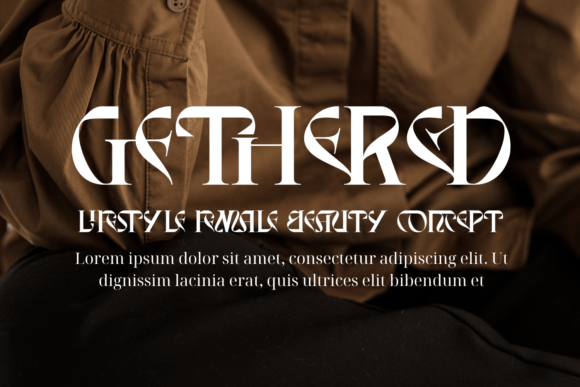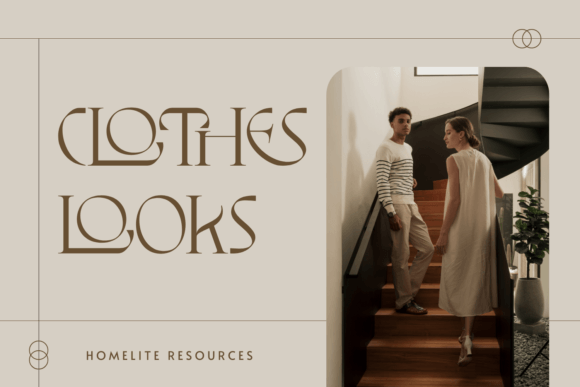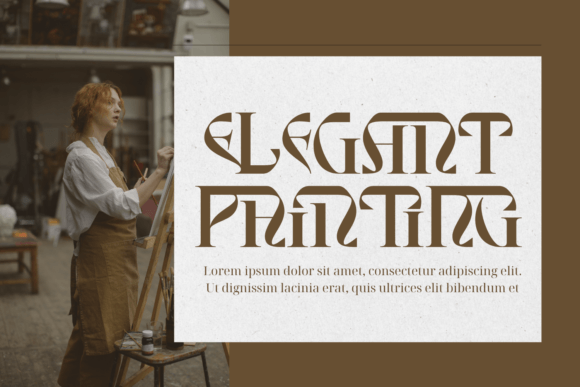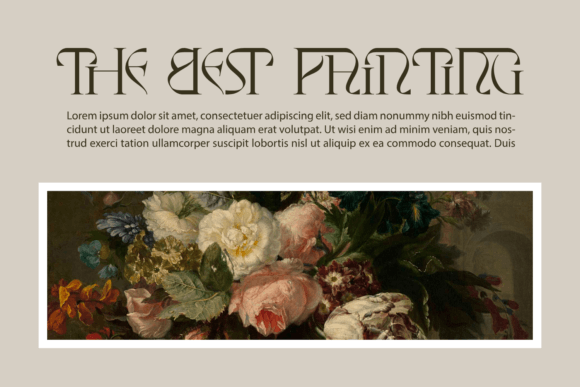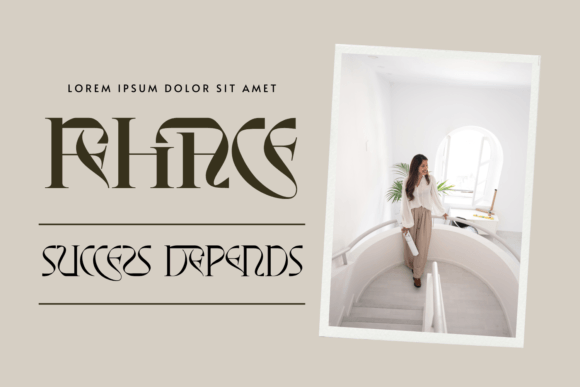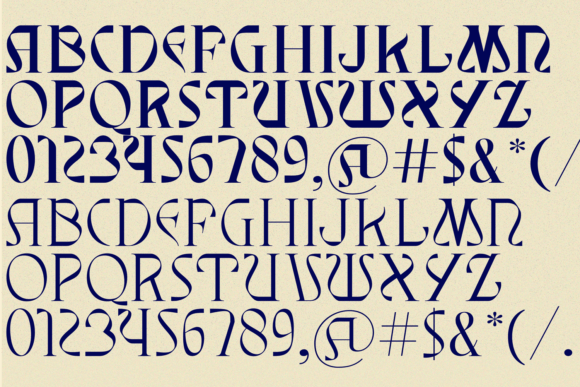
Introduction to Homelite Resources Font
Homelite Resources is a modern serif display font.
This typeface embodies a perfect balance between eccentricity and delicacy, much like a garden in full bloom Whether youโre looking to evoke nostalgia or convey contemporary elegance, this font is your go-to solution for achieving that perfect balance.